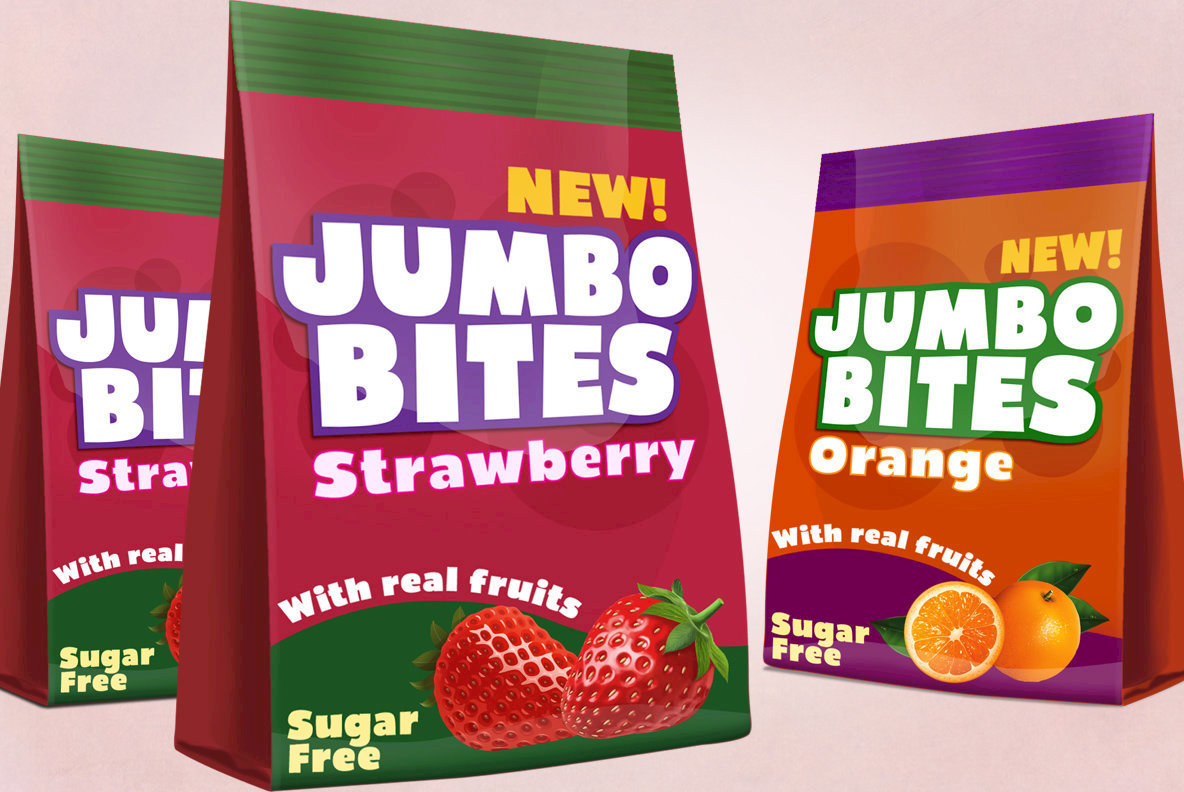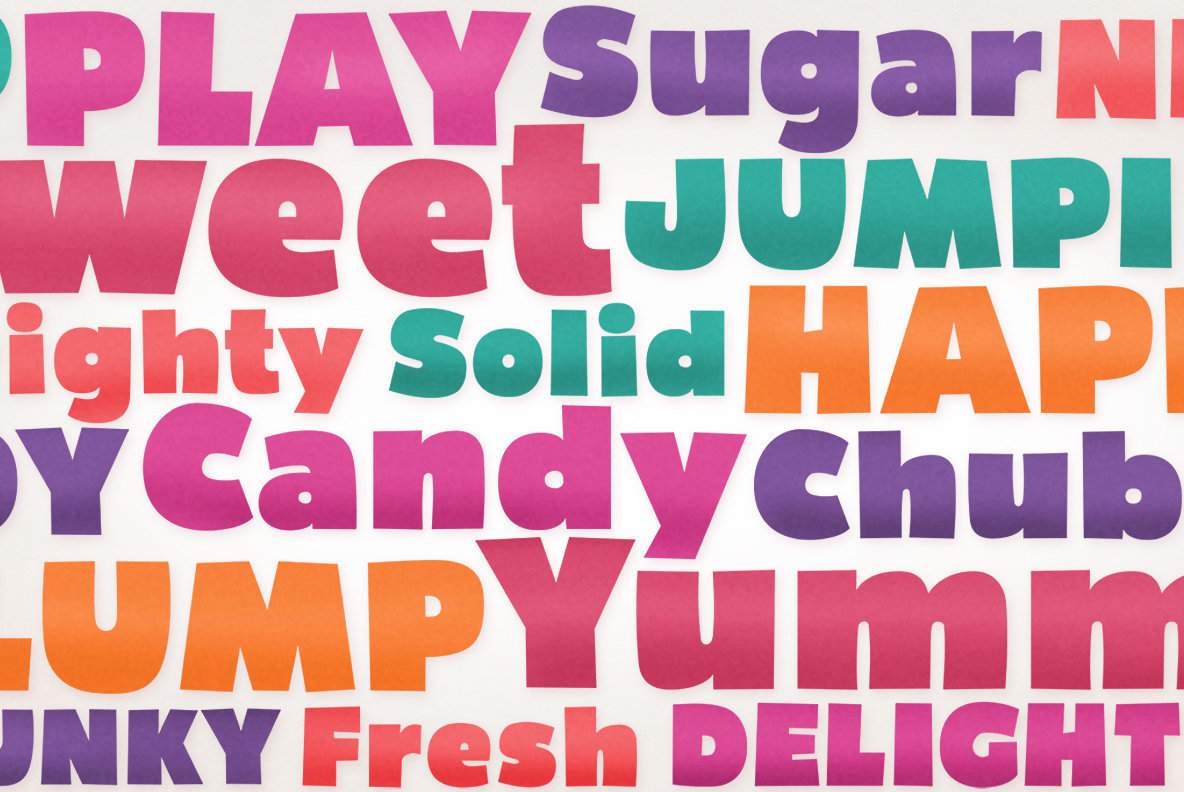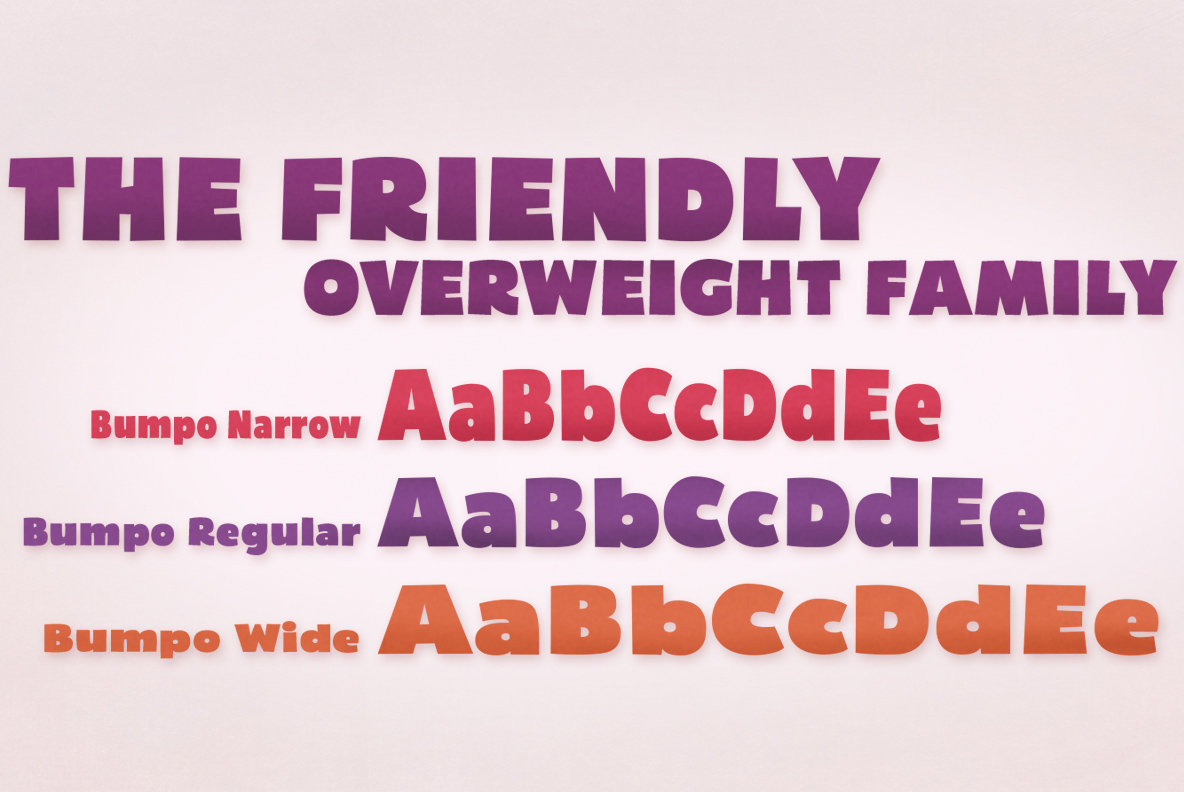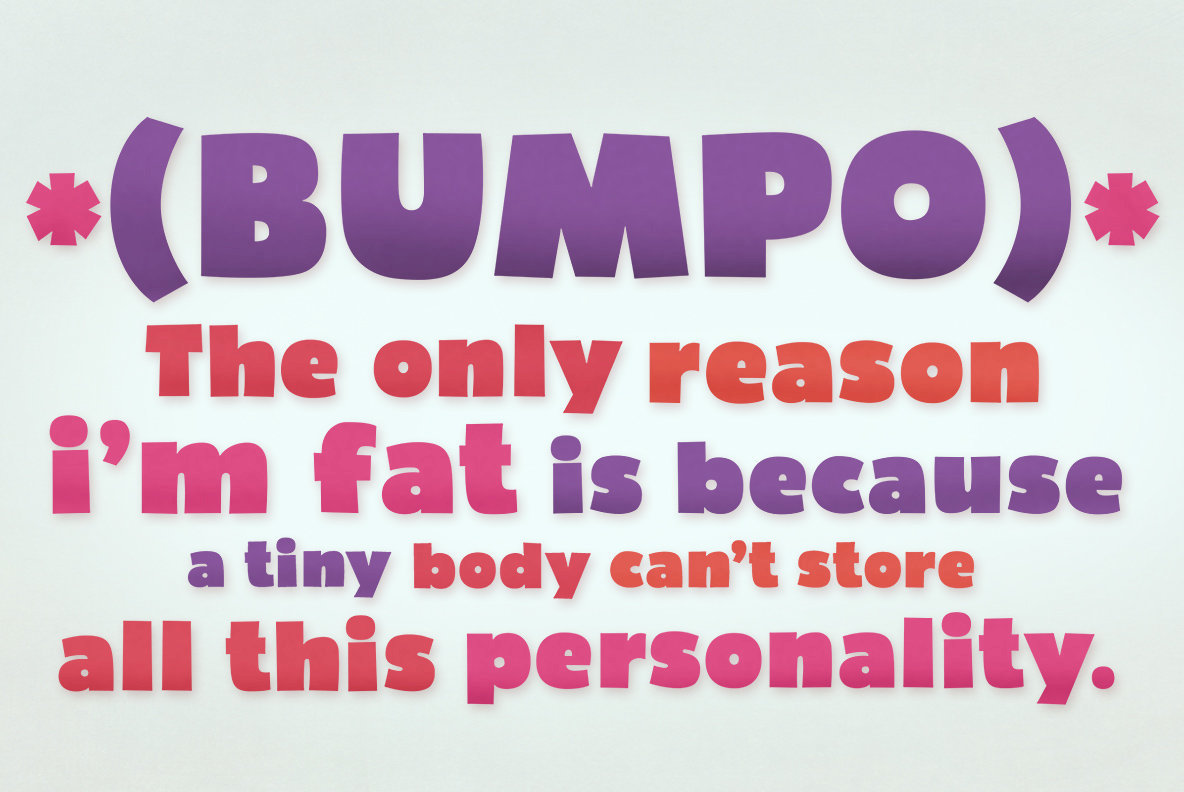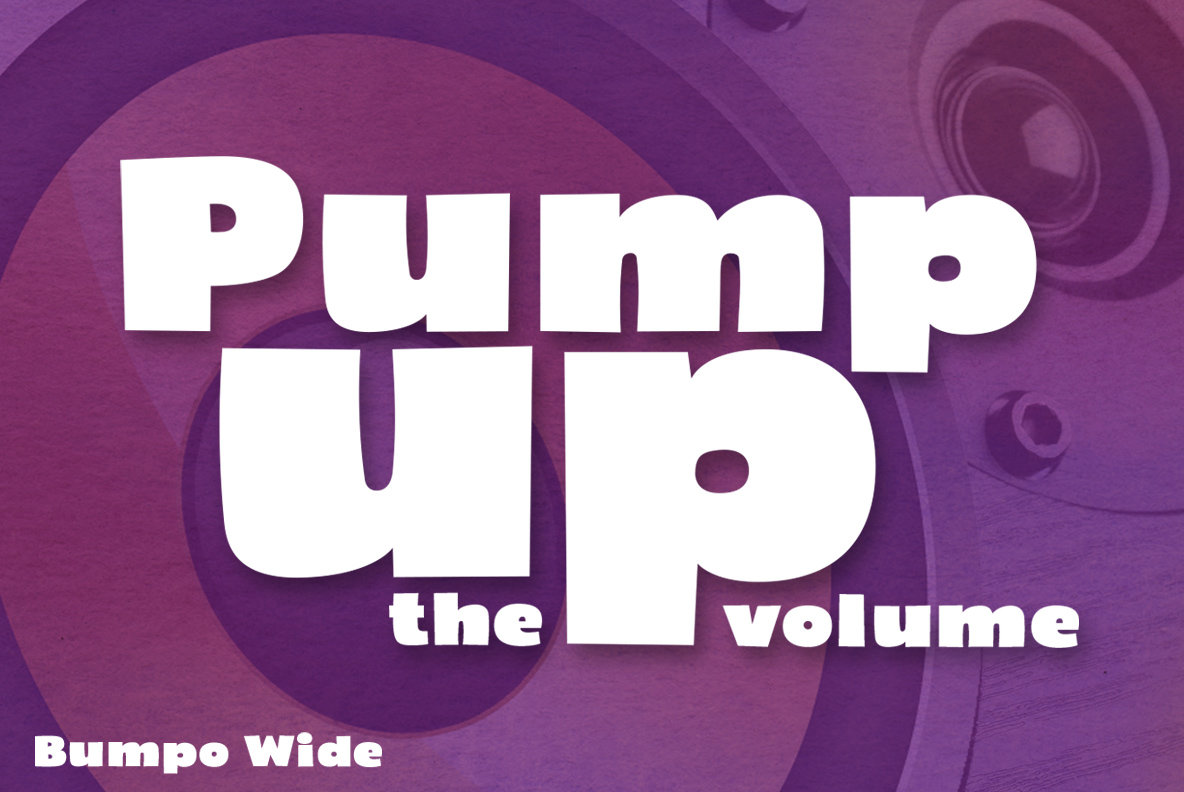
Bumpo Font
Bumpo
Bumpo Narrow
Bumpo Wide
Bumpo is a chunky and a fun display typeface. With an extra heavy but friendly personality, Bumpo works well for posters, food packaging, children’s products and books, or any communications which needs to be friendly, fun, casual or loud.